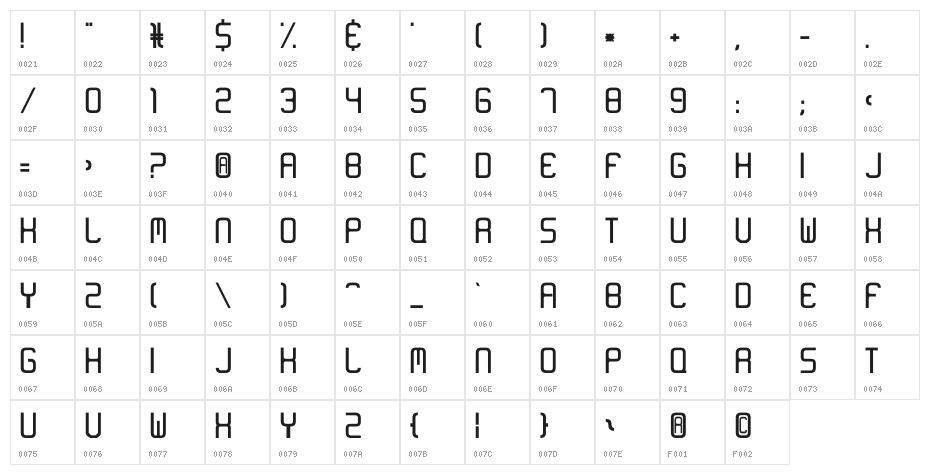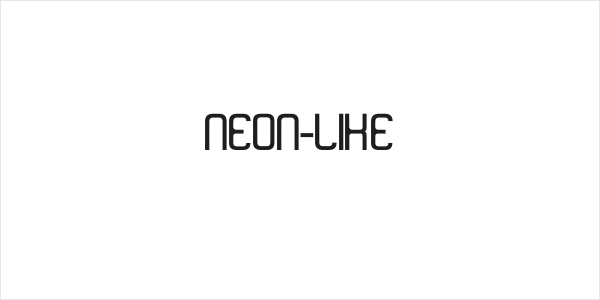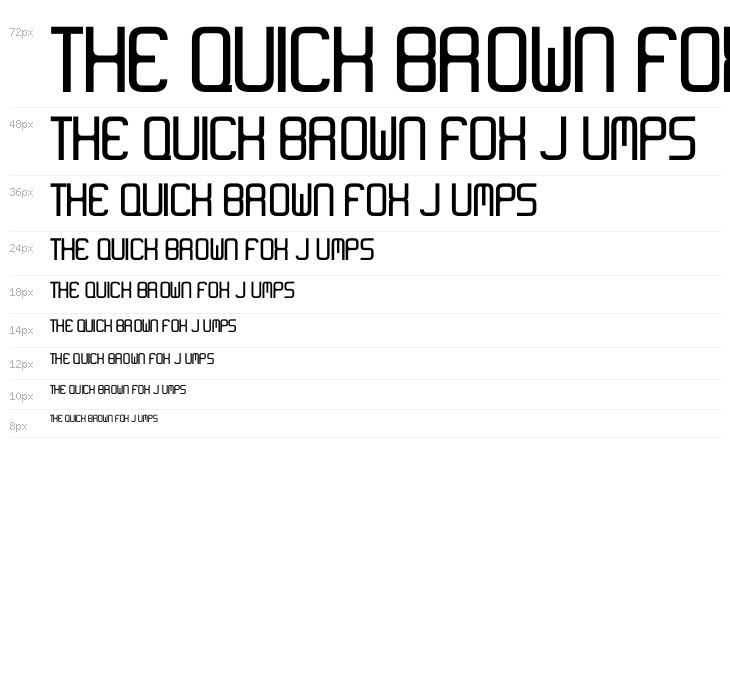
neon-like Font
neon-like Description
This font features a modern, neon-like aesthetic with rounded edges and a geometric structure. The characters are uniform in height and width, creating a cohesive and balanced appearance. The uppercase and lowercase letters maintain a consistent style, with smooth curves and clean lines that evoke a futuristic and sleek vibe. The numerals and special characters follow the same design principles, ensuring a harmonious look across all elements. The font's design is reminiscent of neon signage, making it ideal for projects that require a contemporary and eye-catching typeface.
| Use Case | Headlines, Logos, Signage |
| Proposed Projects | Ideal for branding, signage, digital media, and futuristic design projects. |